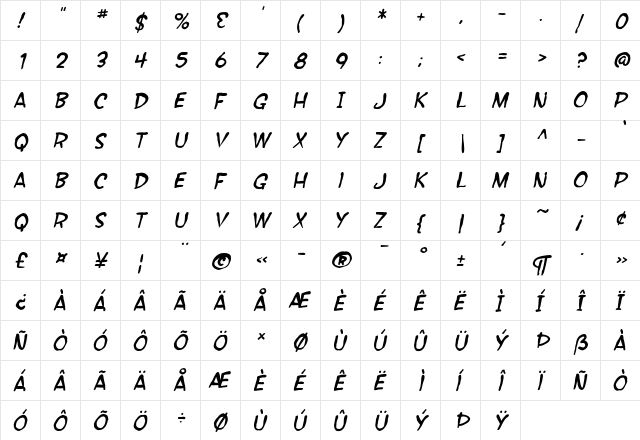
SF Wonder Comic Blotch Italic
| Foundry | ShyFoundry |
| Designer | Derek Vogelpohl |
Design Context for SF Wonder Comic Blotch Typeface
SF Wonder Comic Blotch trades formality for fun, with bouncy, characterful letterforms that bring warmth and energy to any project. The dynamic lean of this cut emphasises speed and emphasis in any layout.
Font Pairing: Pairs well with a rounded or humanist sans for body copy, maintaining the friendly tone without relying on SF Wonder Comic Blotch to carry extended reading.
Pro Tip: Avoid using SF Wonder Comic Blotch for long passages of text — it works best for headlines, labels, and short calls to action.